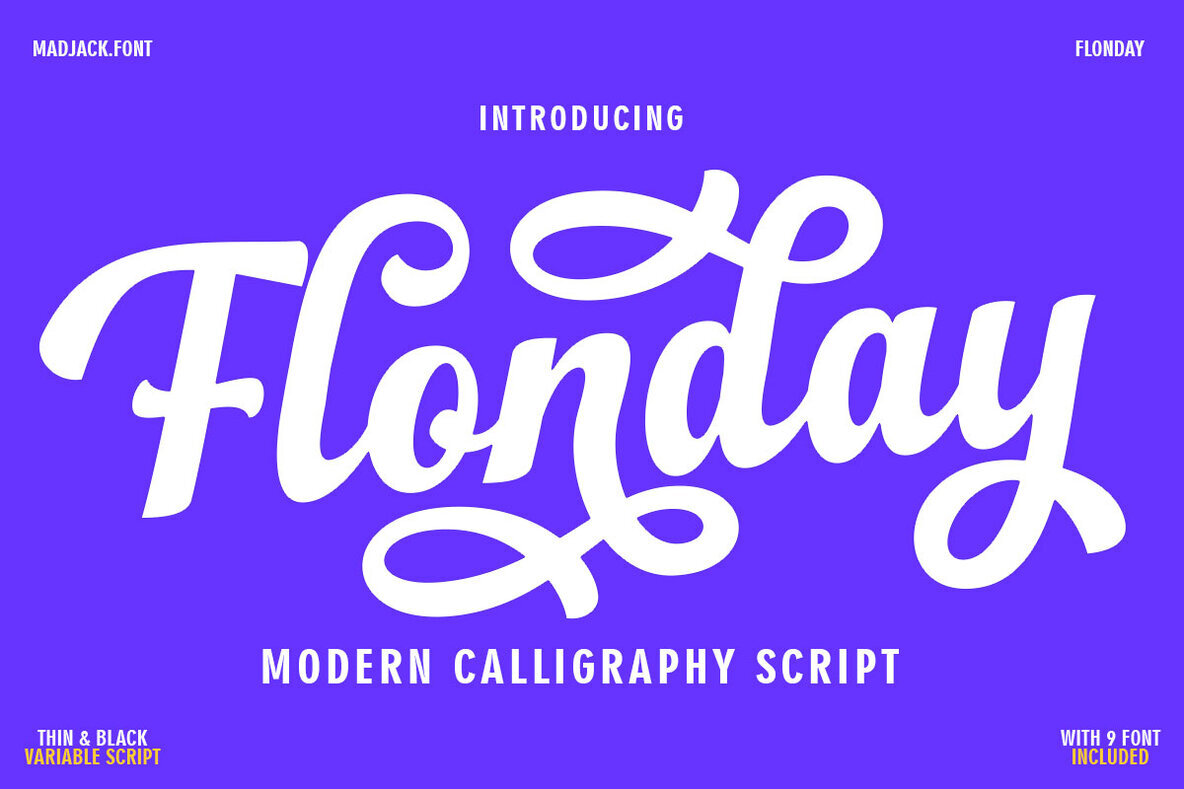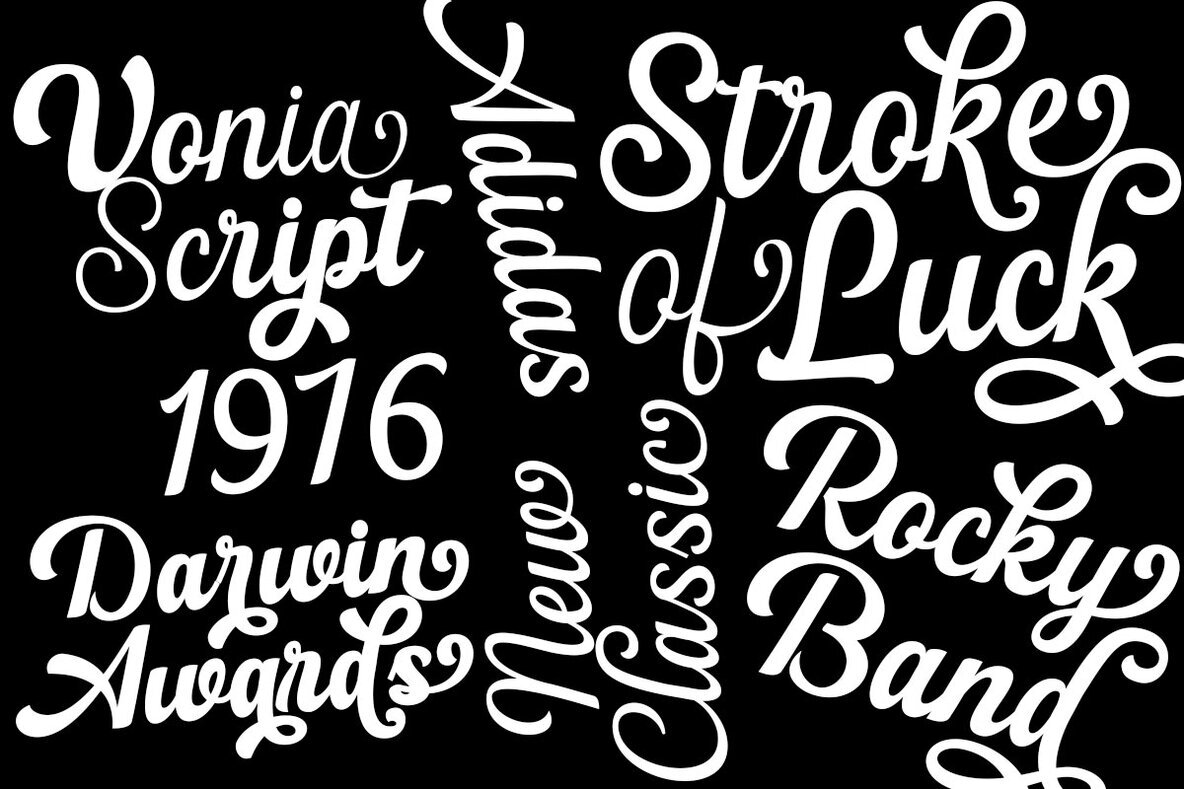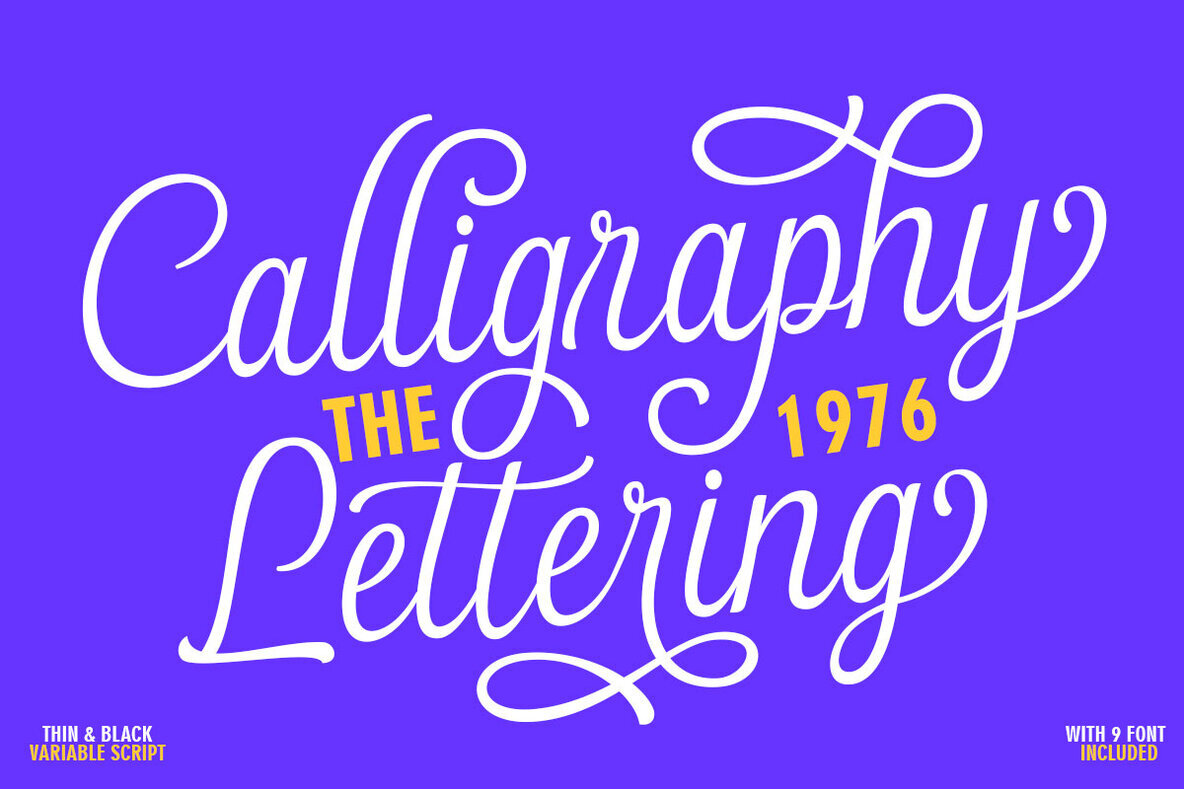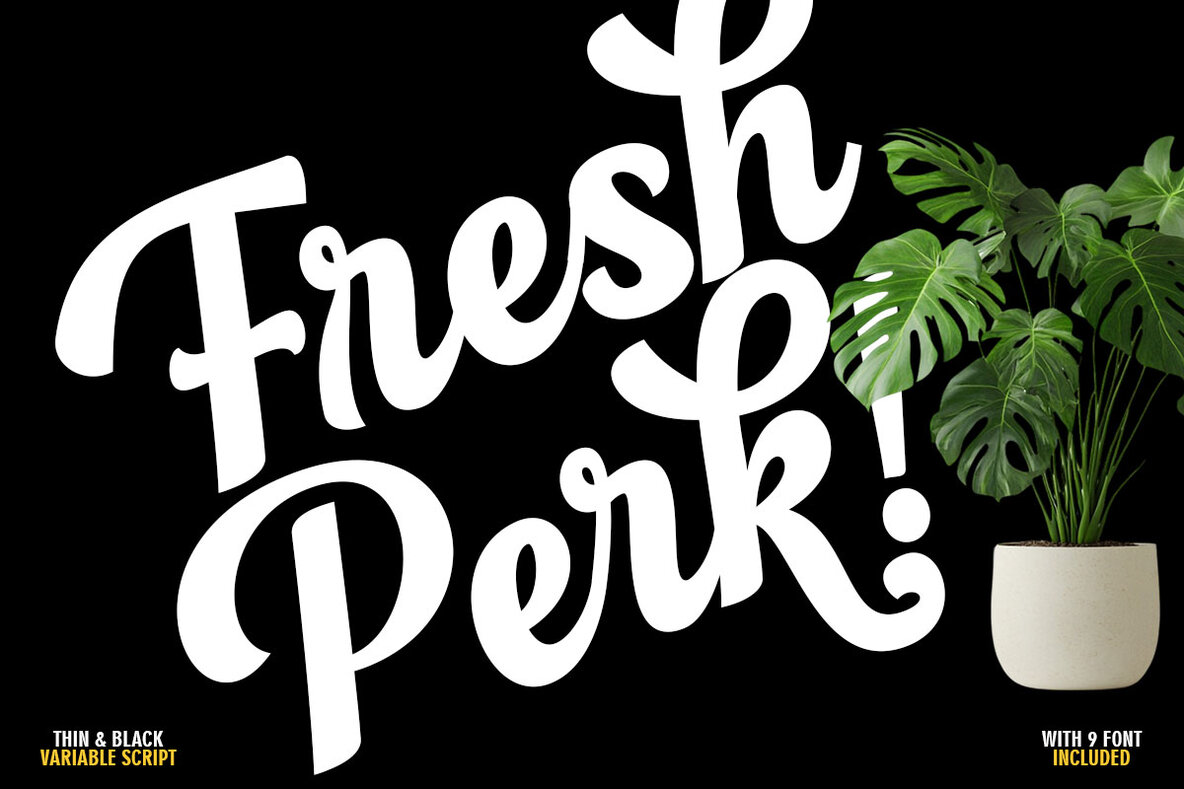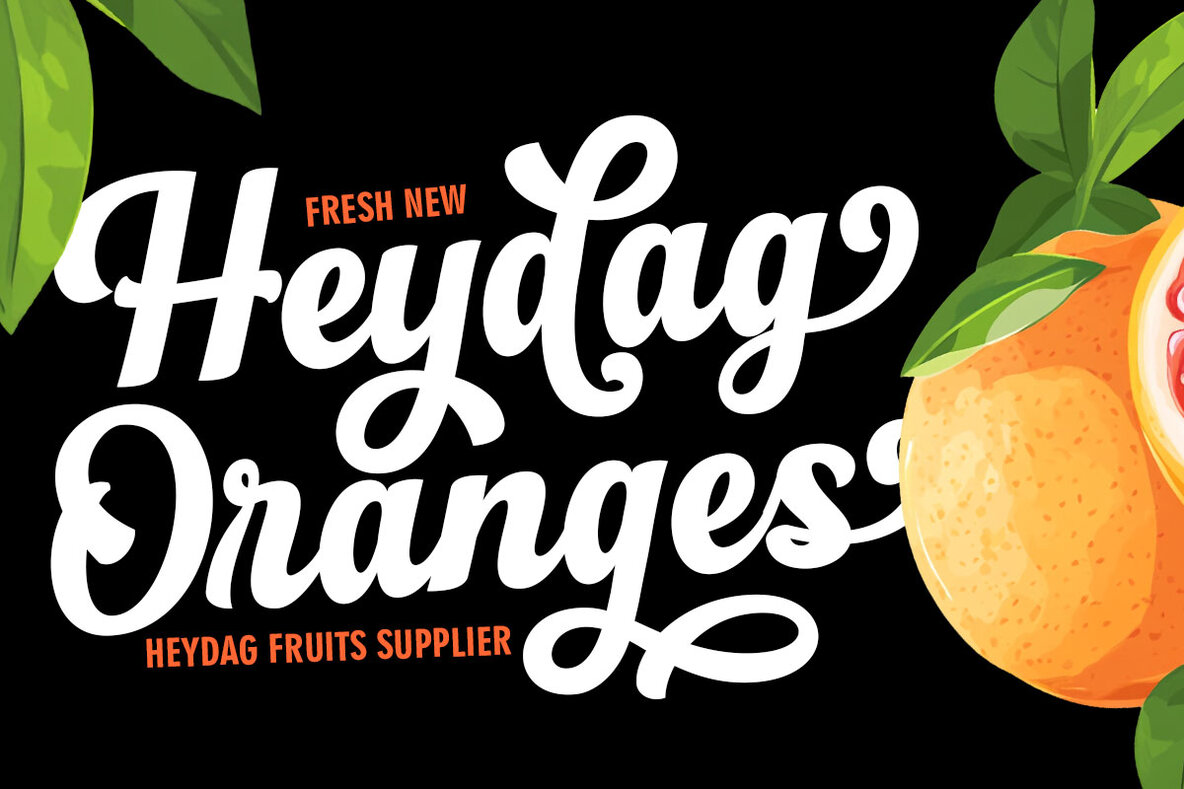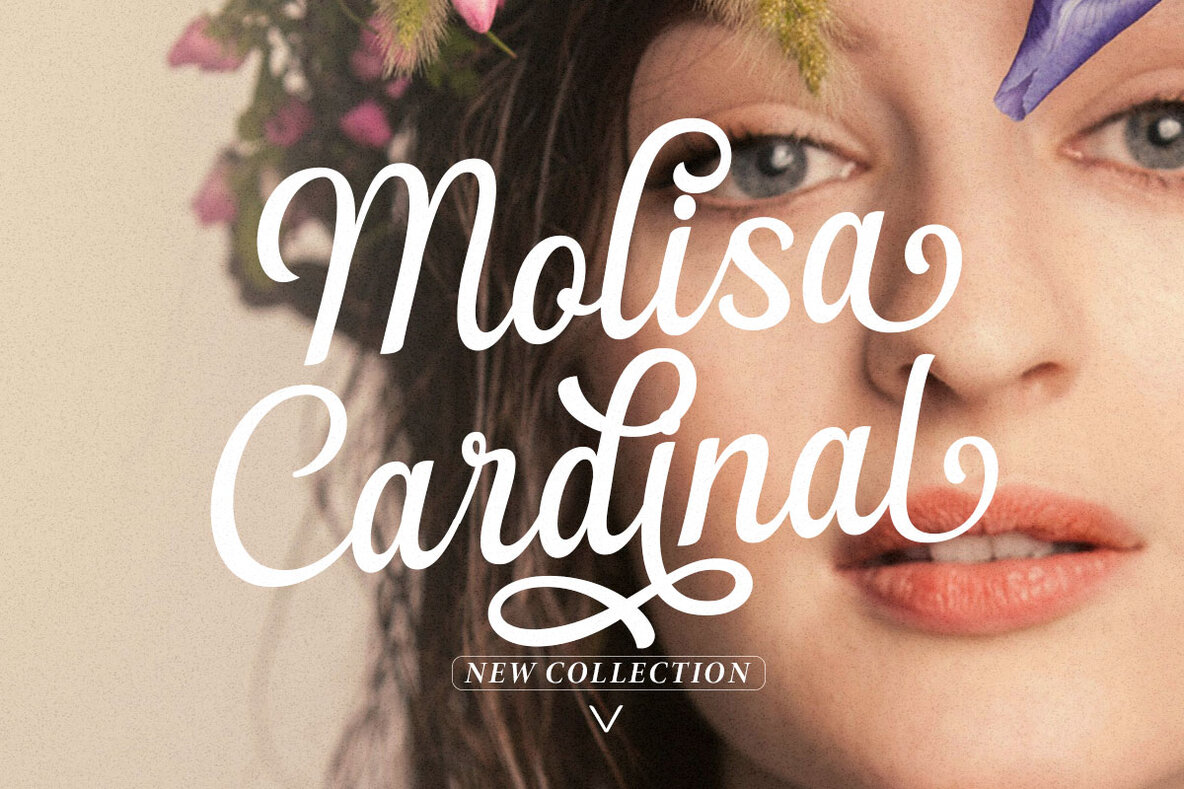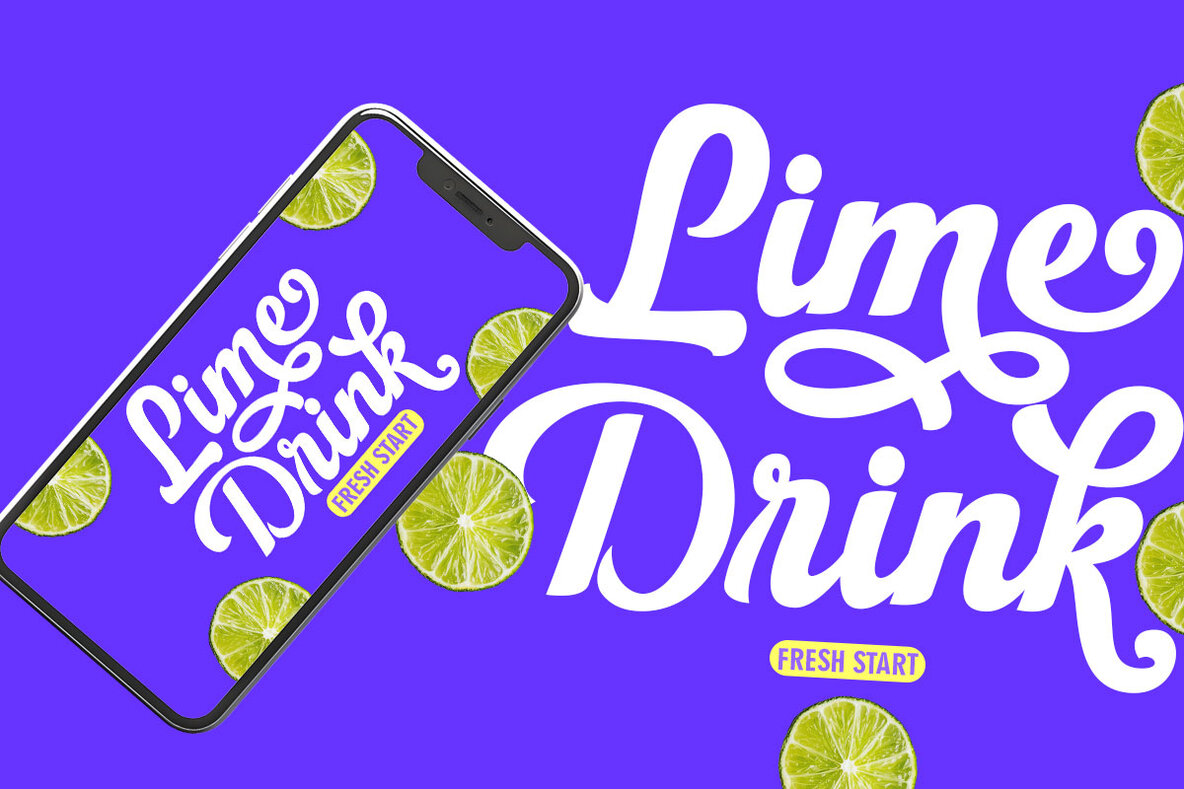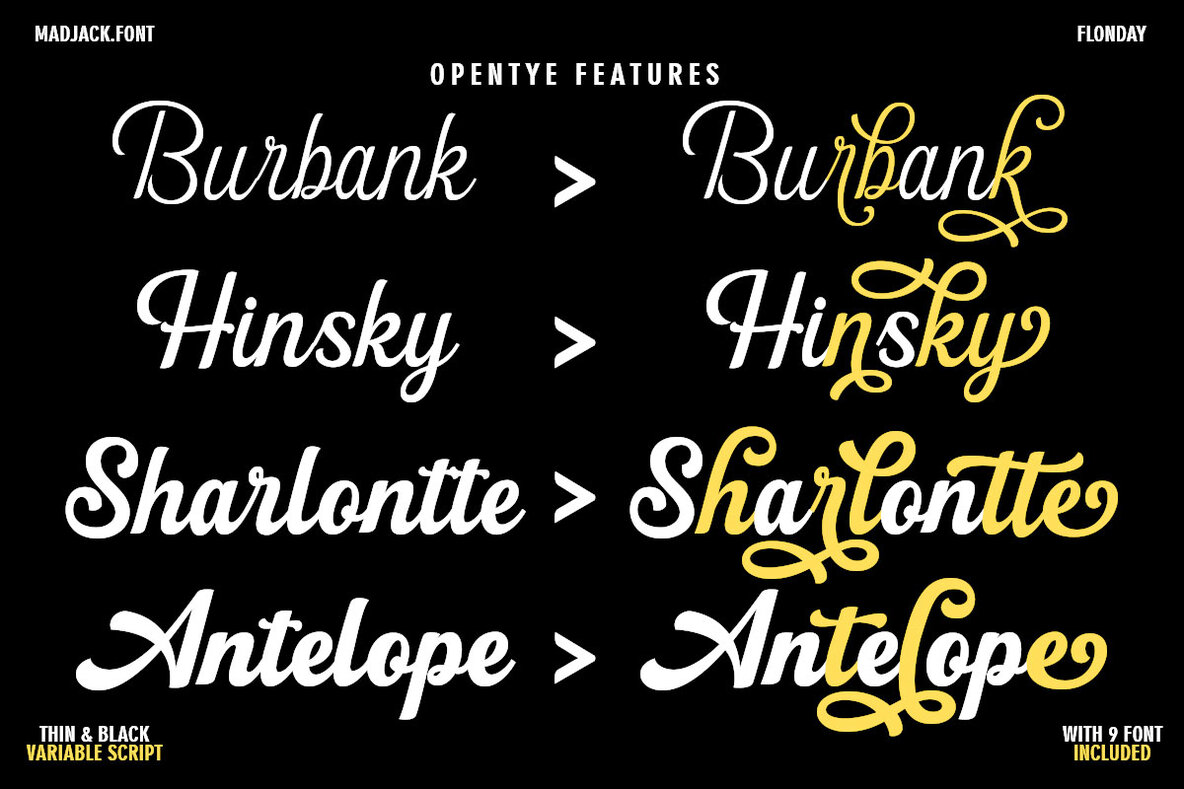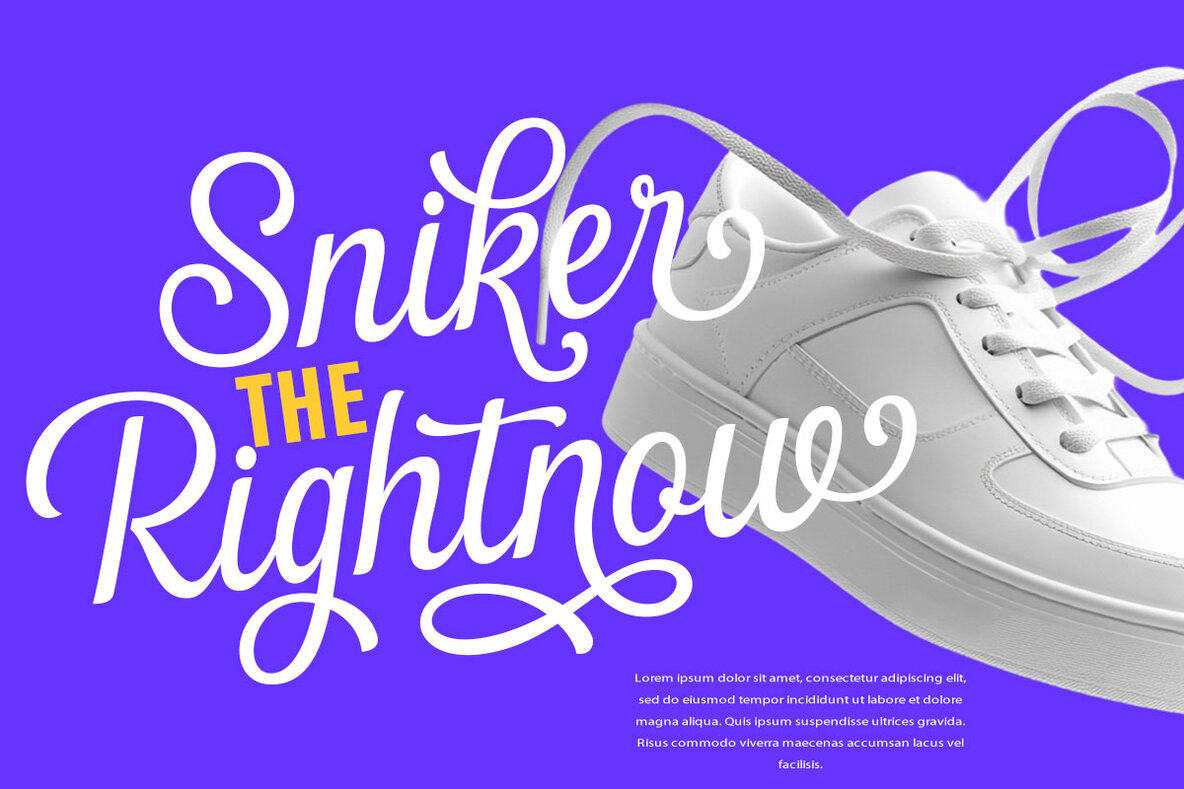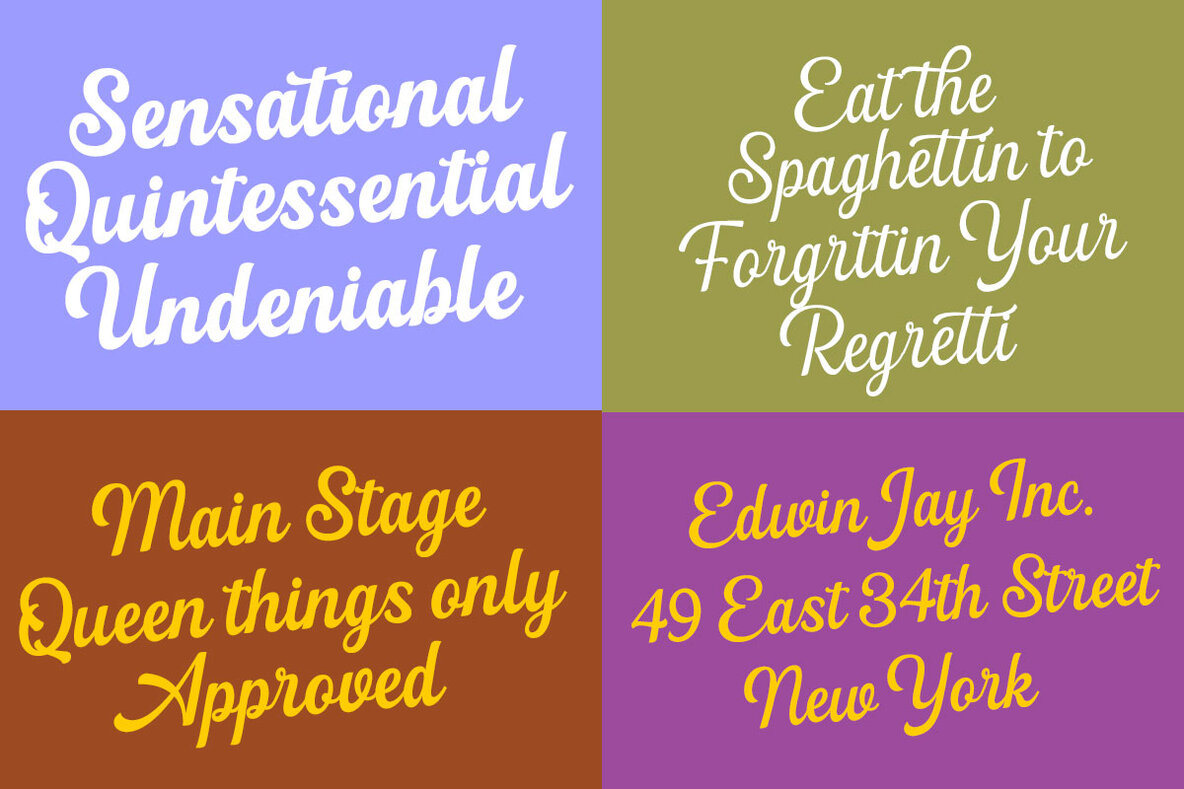
Flonday Font
Flonday Script Variable Thin
Discover Flonday, a striking modern script typeface that captures the essence of elegant calligraphy. Featuring beautifully flowing letters adorned with strong ligatures and decorative flourishes, Flonday is perfect for projects demanding a touch of personal and artistic flair. This typeface excels in a variety of creative applications, offering a seamless blend of bold design and refined detailing.Flonday – Modern Calligraphy Script